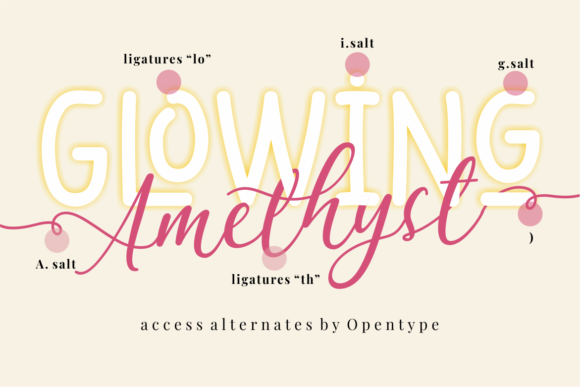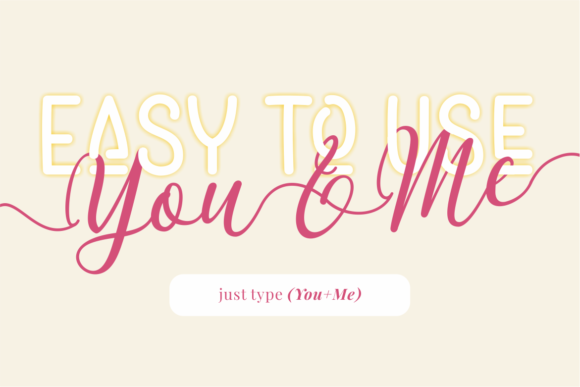
Glowing Amethyst Font
db-ku.com - Script & Handwritten -- Glowing Amethyst consists of two fonts designed to complement each other perfectly. Together or apart, these fonts are ideal for adding a chic and cheery touch to your crafts. This font is PUA encoded which means you can access all glyphs and swashes with ease!